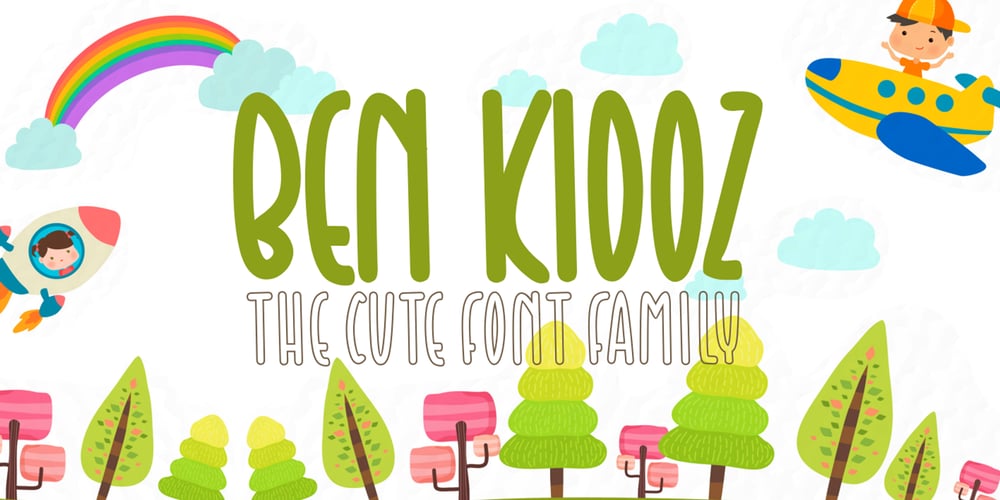
Ben Kidoz Font Family was designed by Sipanji and published by Sipanji21. Ben Kidoz contains 4 styles and family package options. Ben Kidoz is a sweet and friendly display font, created with an incredible playful touch, with Regular, Bold, Italic and hollow feel. Add this font to your favorite creative ideas and notice how it makes them come alive!